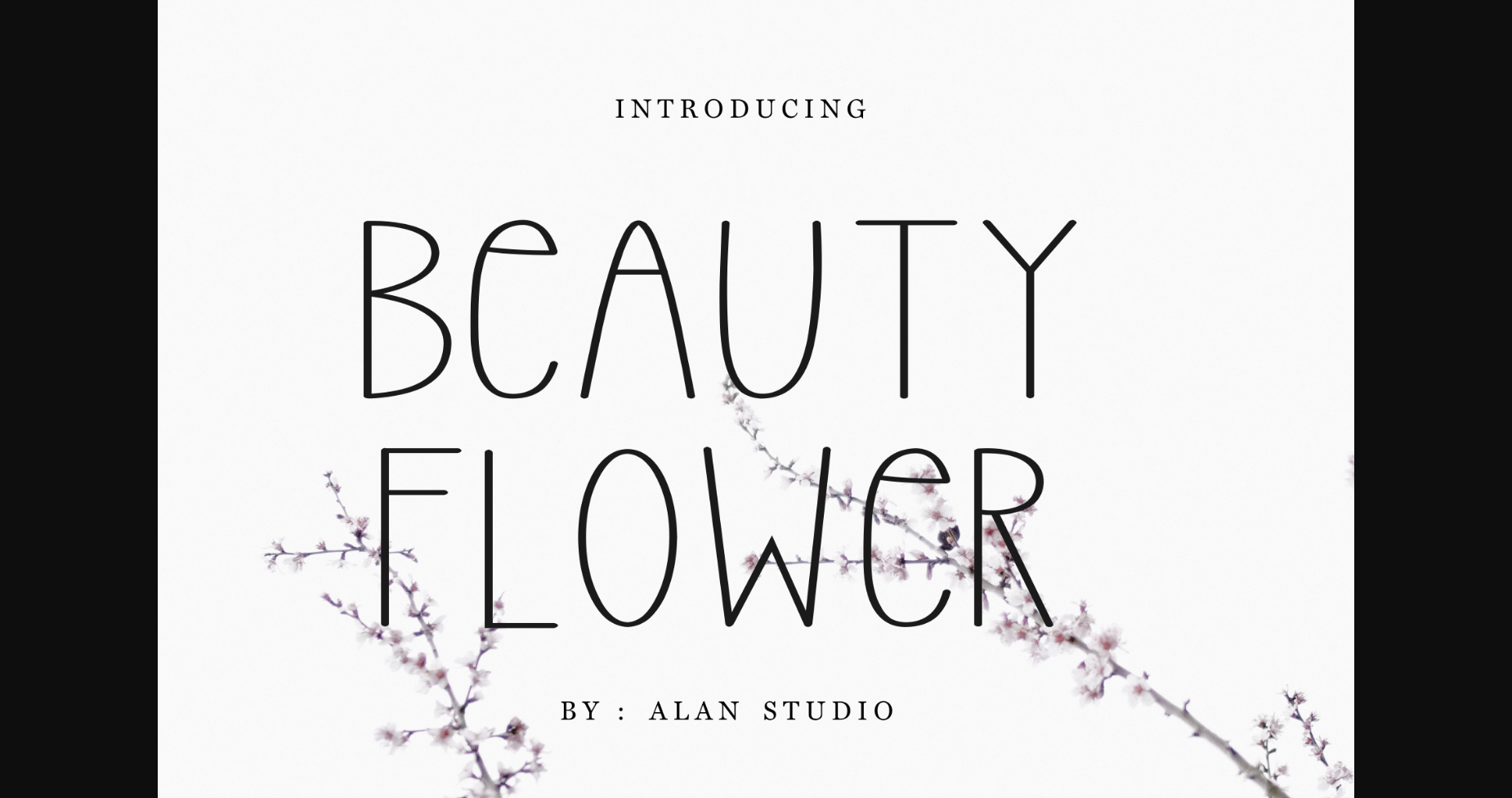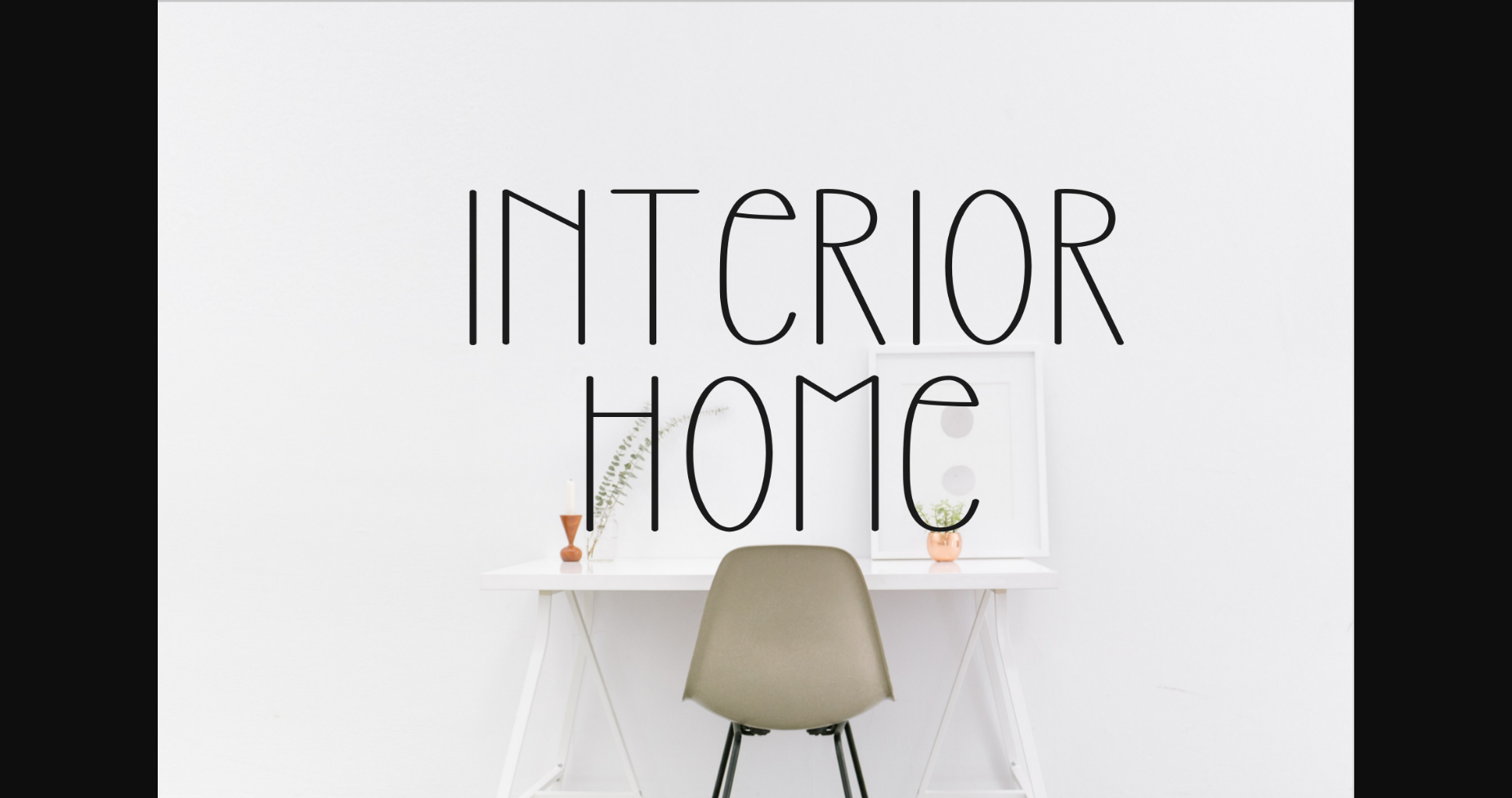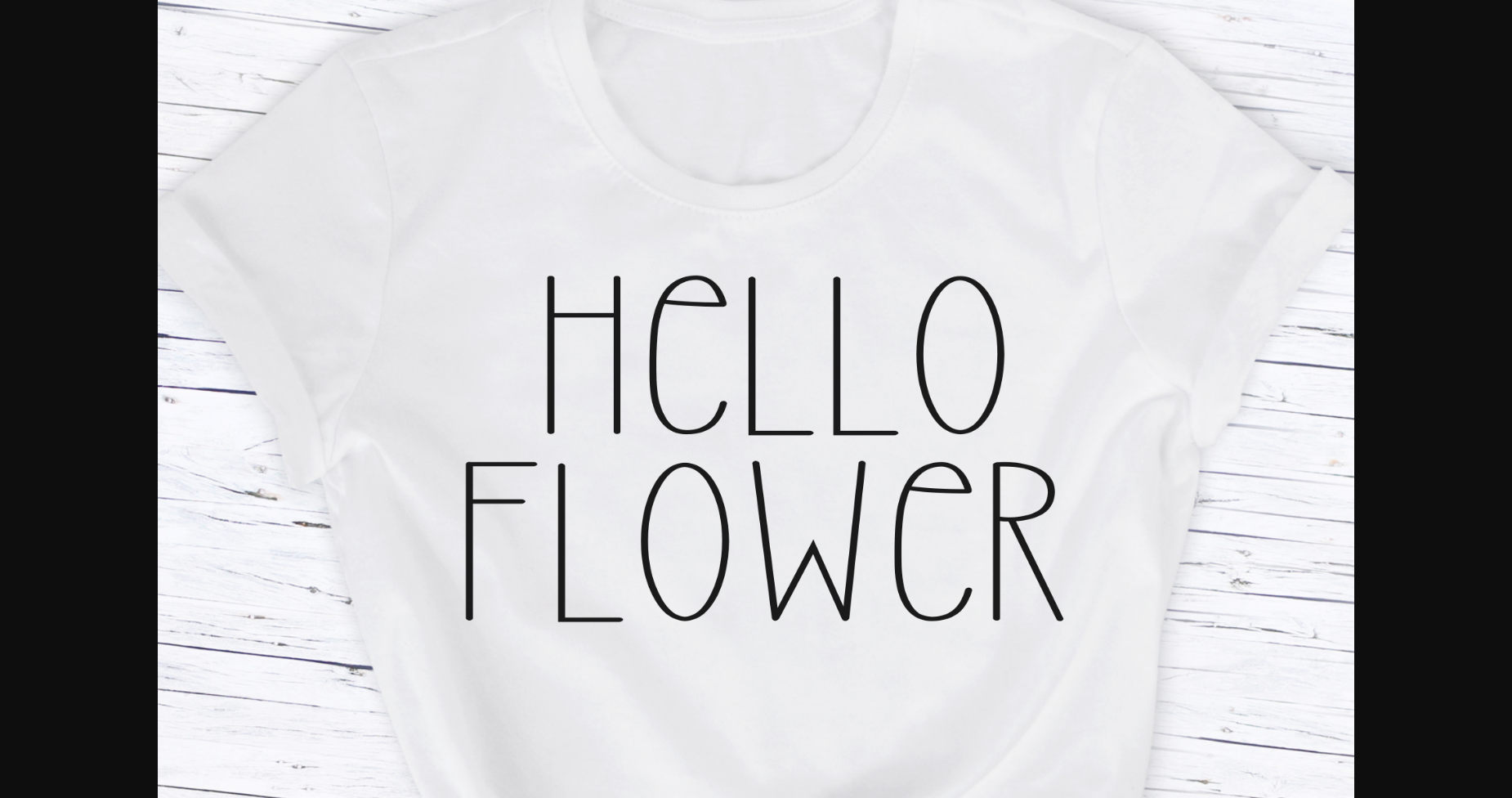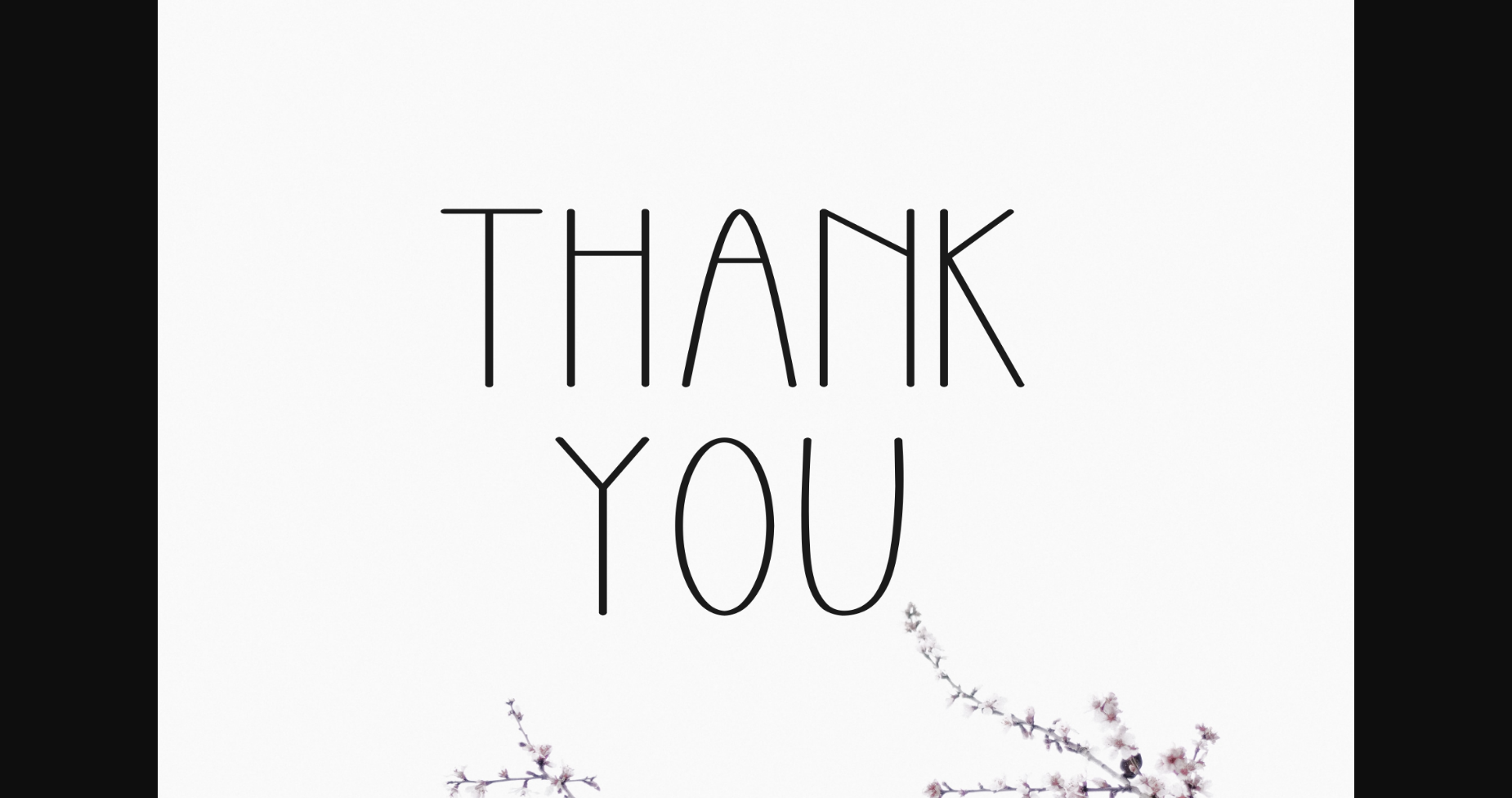
Beauty Flower Font
About Beauty Flower Font
Beauty Flower is a simple and thin lettered sans serif font. It can easily be matched to an incredibly large set of projects, so add it to your creative ideas and notice how it makes them stand out!